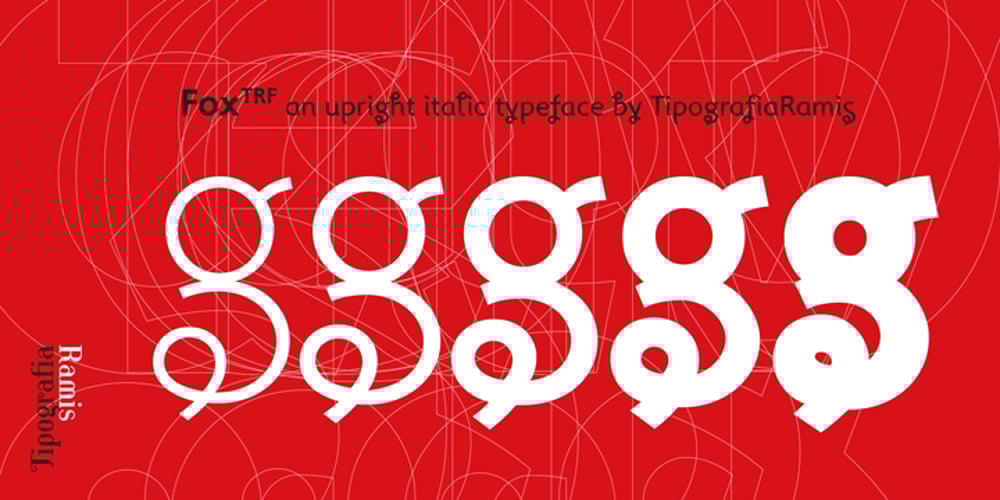
Fox TRF Font Family was designed by Ramiz Guseynov and published by TipografiaRamis. Fox TRF contains 5 styles and family package options. Fox is a completely new typeface based on my previously designed Fox family font, which has been in distribution by T26 type foundry since 2001. Old Fox typeface design decisions were reconsidered in a way to improve legibility without sacrificing its originality. This new Fox family consists two subfamilies: Fox TRF and Fox Sans TRF. Fox TRF is upright italic typeface with light, regular and bold weight styles. The most distinguished Fox characteristic is the lowercase letters. Their curly, playful and vivid letter forms were derived from handwritten lettering then carefully shaped and adapted onto sans serif category. Fox typeface is recommended for use as a display font, and has been generated in a single OpenType format with Western CP1252 character set.